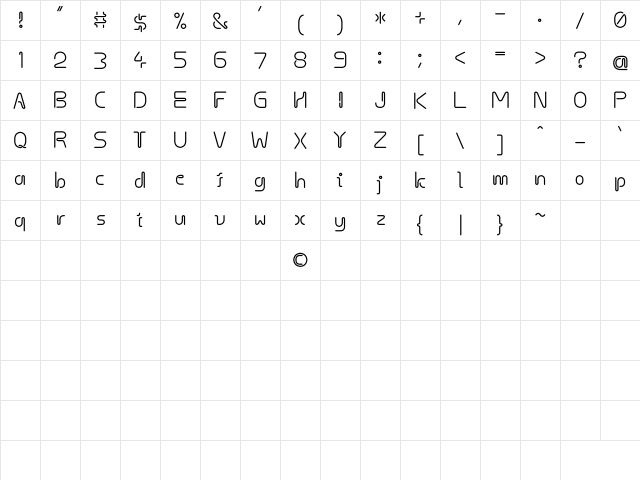
Hosobiki Regular
Design Context for Hosobiki Typeface
Hosobiki is a composed and adaptable typeface that performs quietly and consistently across a wide range of design contexts.